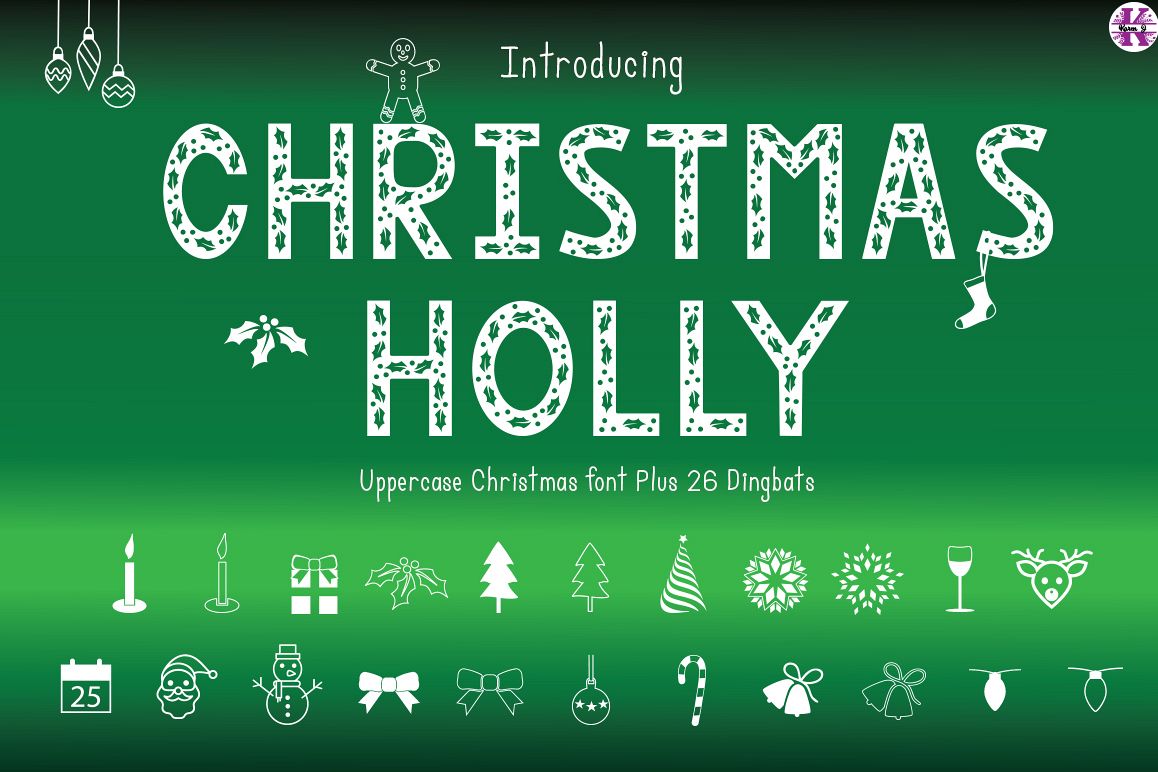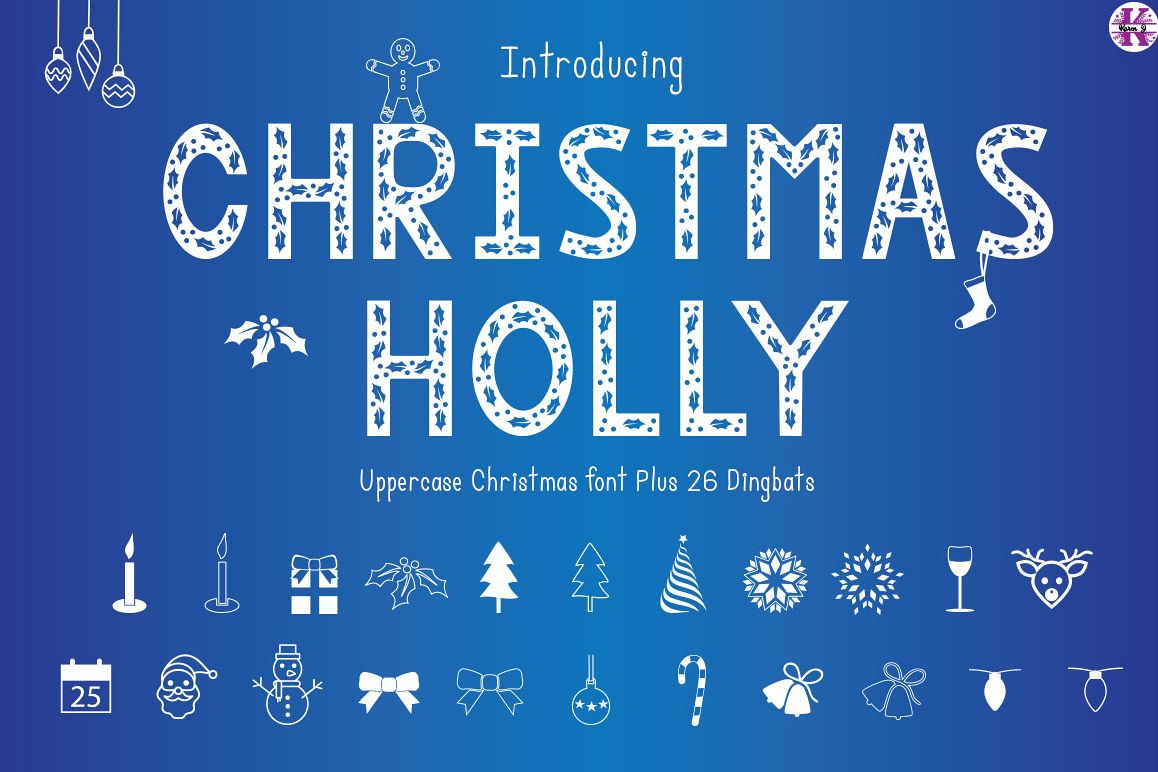
Uppercase Christmas font
A decorative Christmas font, to use for your Christmas decorating. like gift tags, holiday party invites, t-shirt designs, stencils and more!